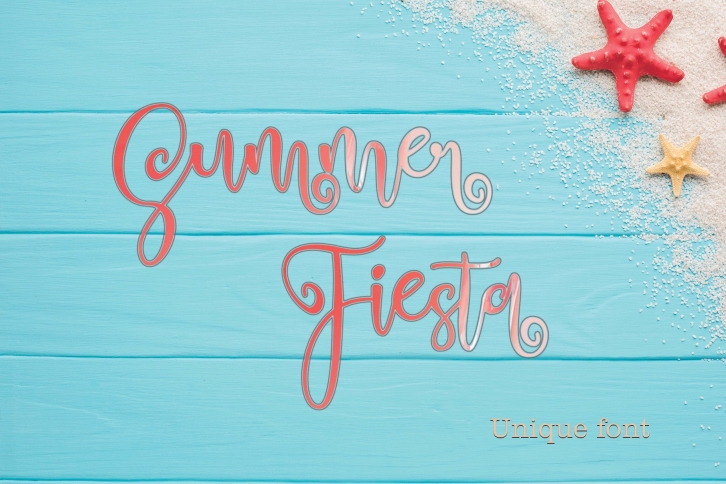
Summer Fiesta is a gorgeous font that was realeased on October 15, 2020. The font can be used in many style contexts and design environments. Perfect for invitations, magazines, websites, logos, and more! It was designed by Letter-P and the file size is 15.69 MB. Thanks for checking out this font!